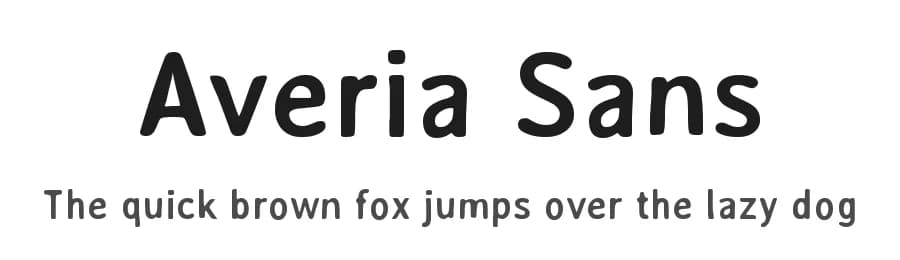
About Averia Sans Font
AverΓa Sans was created as the average of all sans-serif fonts on a computer. See
Averia Sans Font is a versatile sans-serif font that works for both headings and body text. Pair it with a contrasting serif or slab serif font to add visual interest and a clear distinction between titles and body copy.
Averia Sans Font
by Dan Sayers